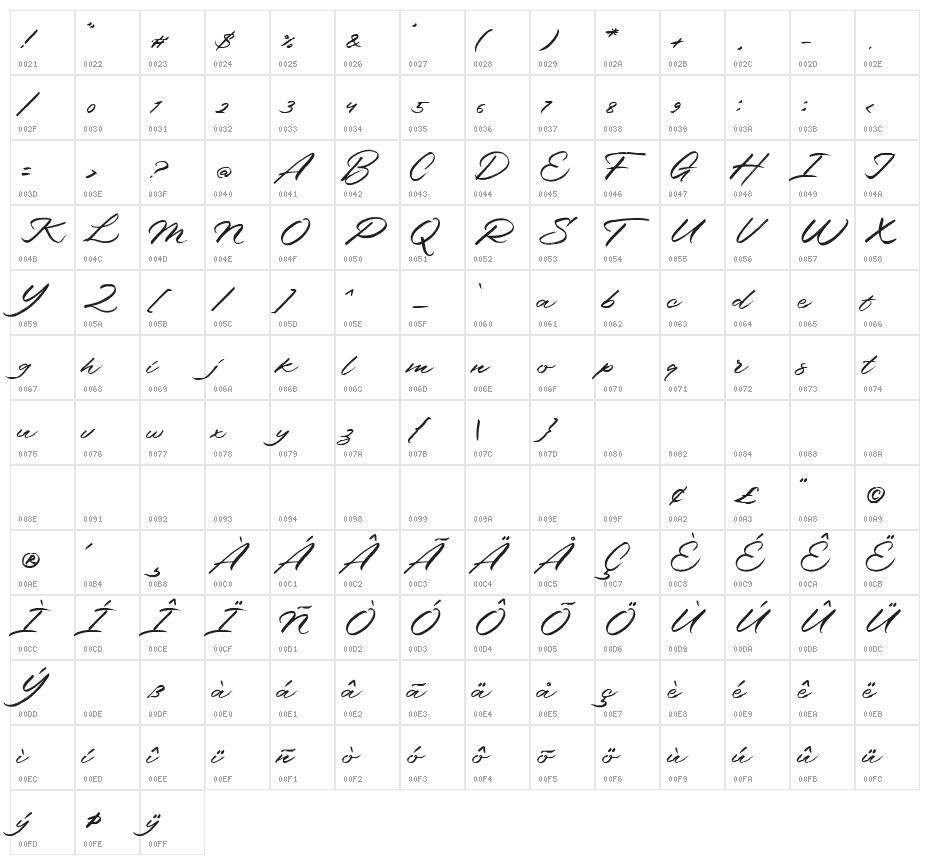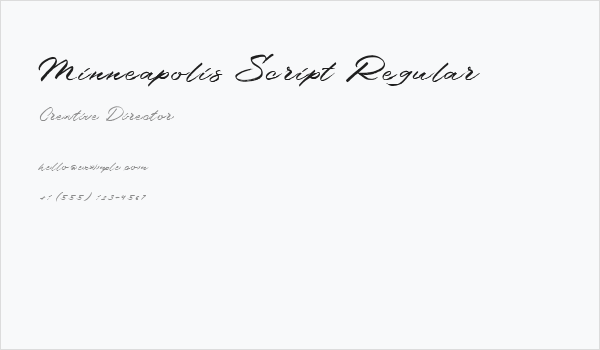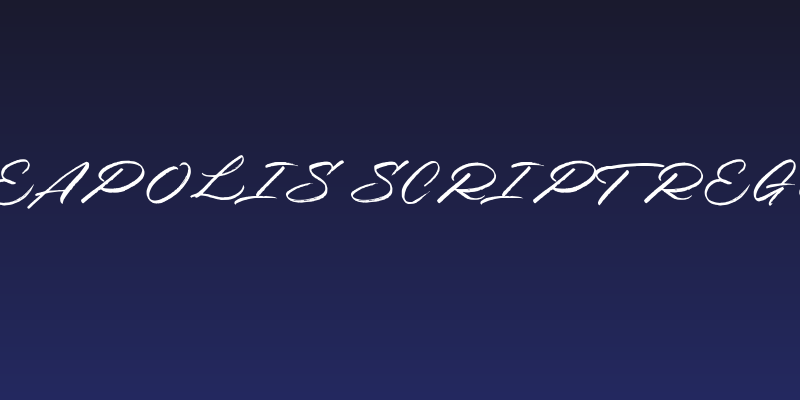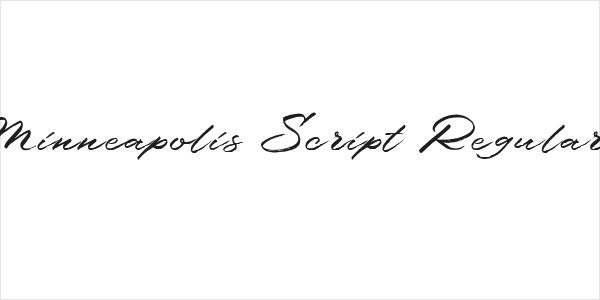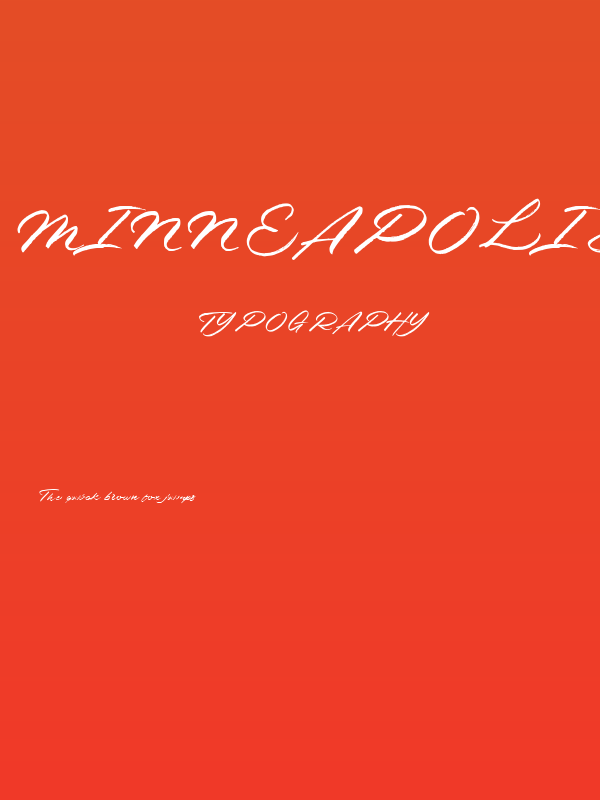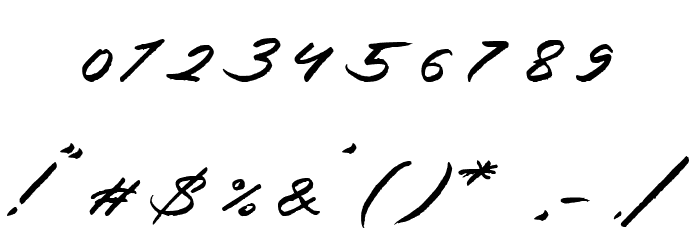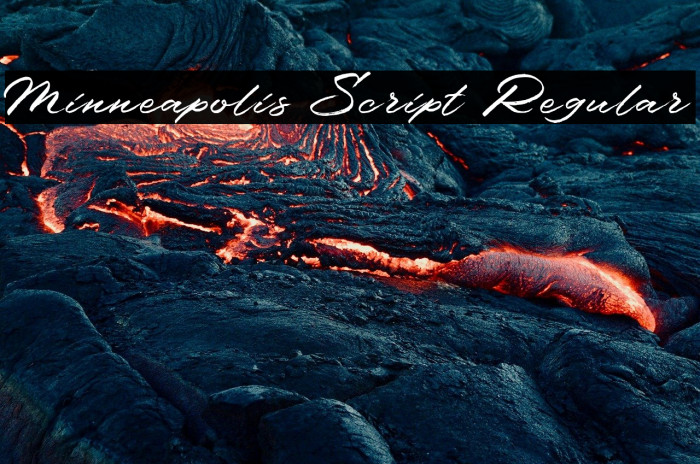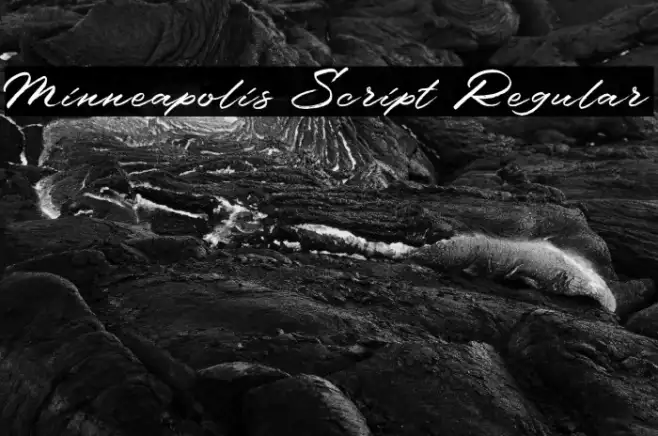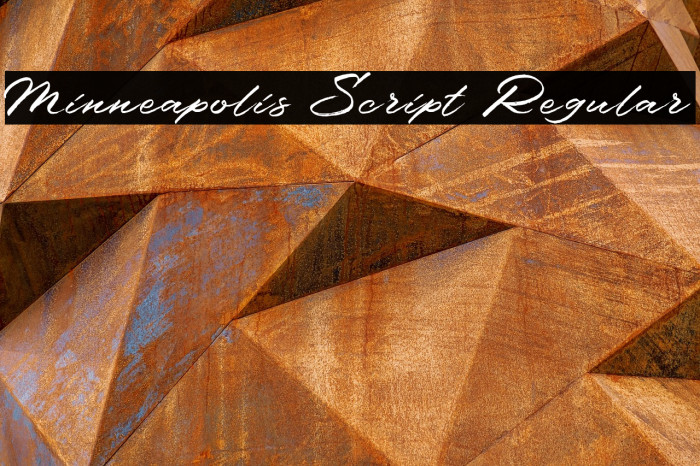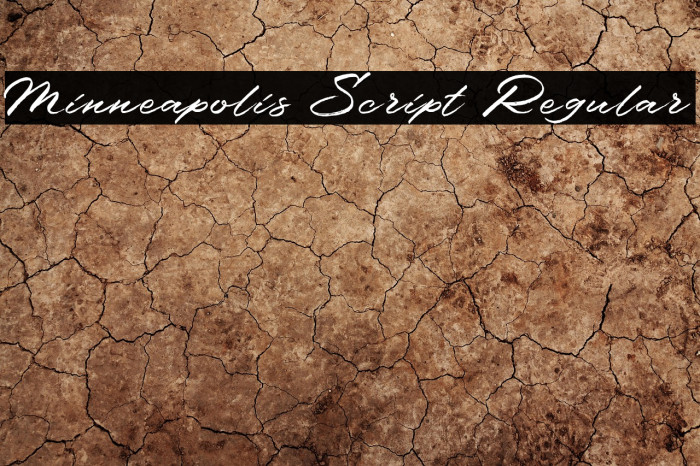
Minneapolis Script Regular Font
Minneapolis Script Regular Description
This elegant script font features fluid, cursive strokes that mimic the natural flow of handwriting. The characters are connected, creating a seamless and continuous appearance. The uppercase letters are slightly more ornate, with flourishes that add a touch of sophistication. The lowercase letters maintain a consistent style, enhancing readability while preserving the font's artistic flair. The numerals and special characters are designed to match the overall aesthetic, ensuring a cohesive look across all text elements. This font is perfect for projects that require a personal, handwritten touch.